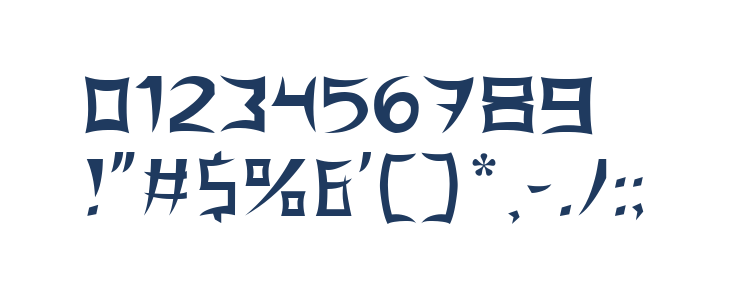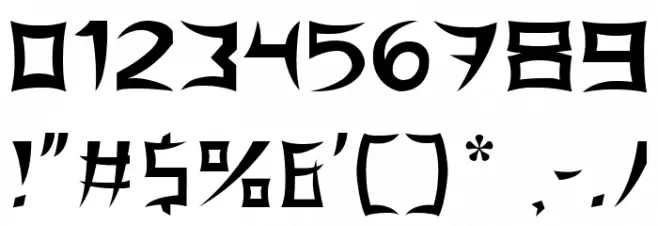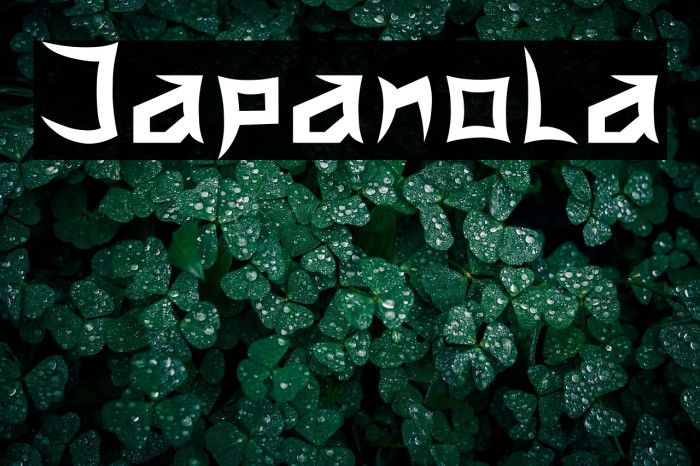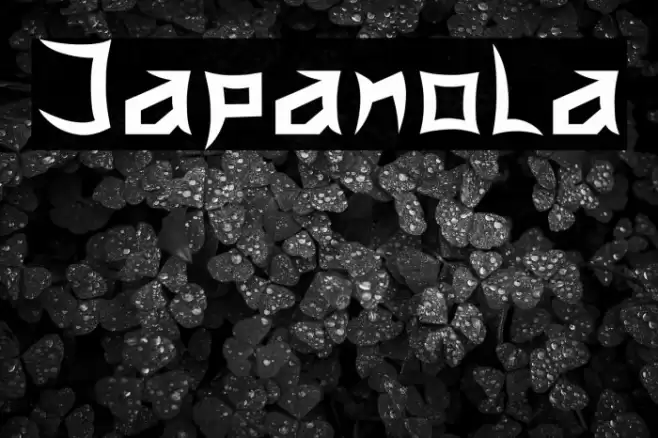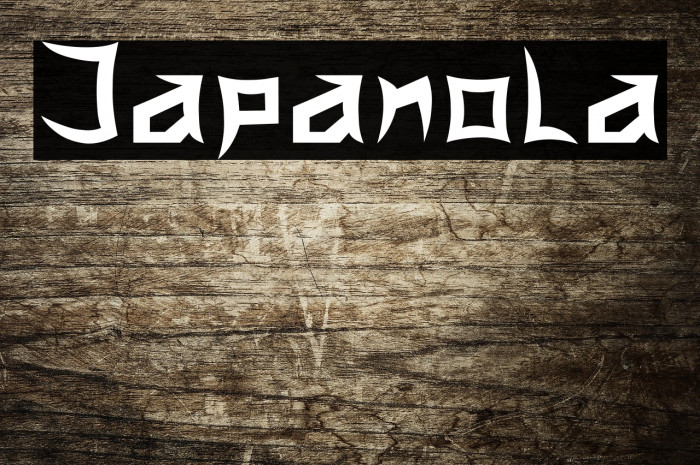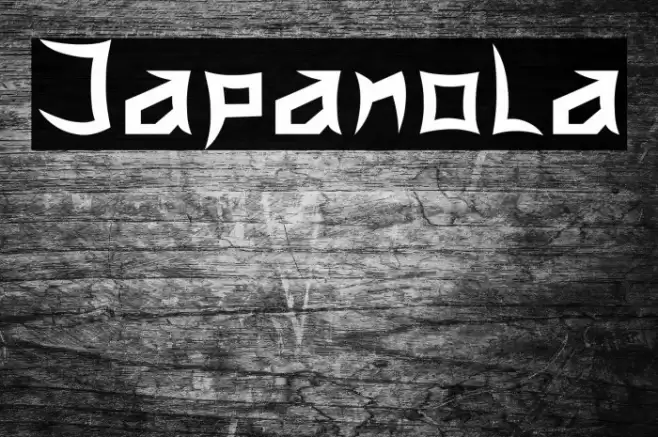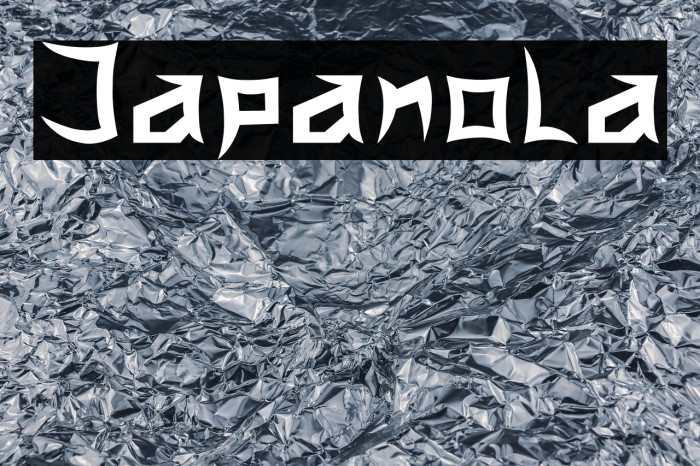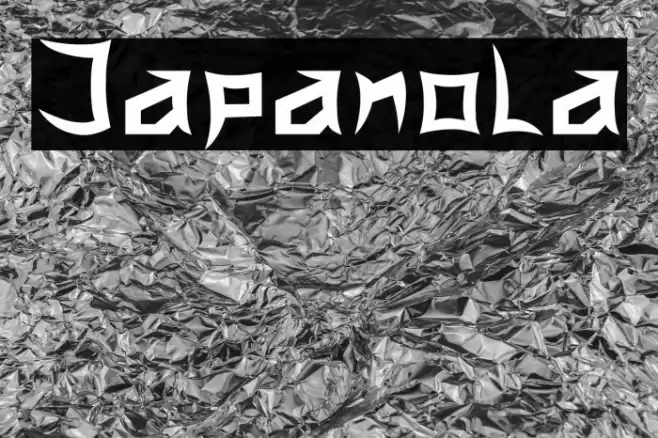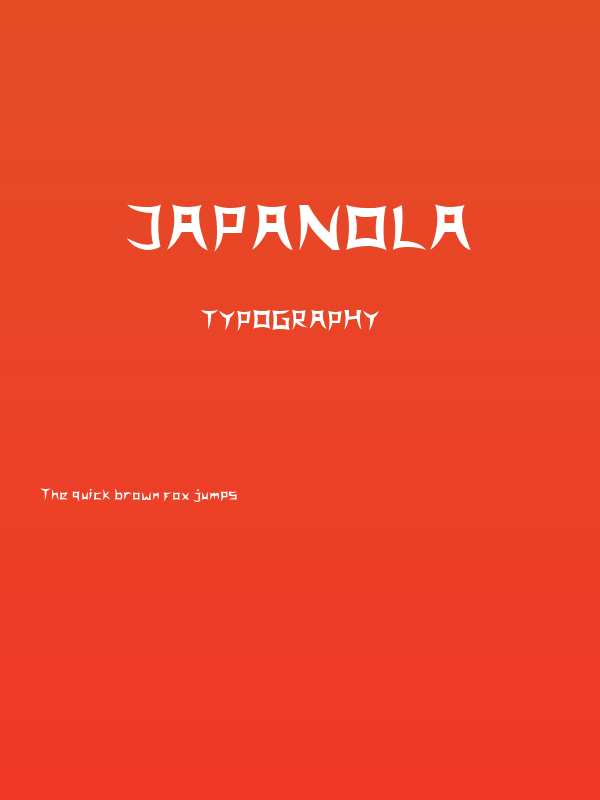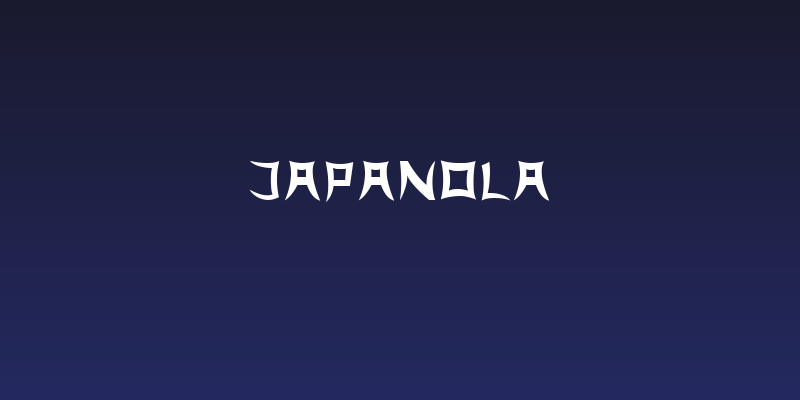
Japanola Font
Japanola Description
This font features a bold and dynamic design with sharp, angular edges and a distinct, edgy appearance. The characters are stylized with a unique flair, incorporating pointed tips and dramatic curves that give it a striking and modern look. The uppercase and lowercase letters maintain a consistent style, with a slightly condensed form that enhances its boldness. Numbers and special characters follow the same design principles, ensuring uniformity across the font. This font's artistic and unconventional style makes it ideal for projects that require a strong visual impact.